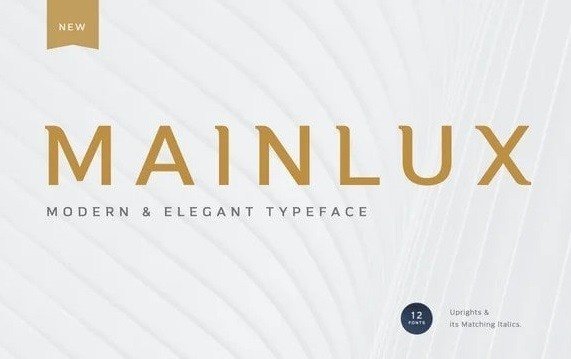
Mainlux Sans Serif Typeface
Mainlux Typeface is a sans-serif geometric typeface inspired by the lettering found on modernist building plans. An elegant small x-height, tall ascenders and wide capital letters make the font look great in titles and short paragraphs.
Very suitable to be used for the manufacture quote text, logotype, header magazine, t-shirt design, and concept handmade designs, etc. This font is free for PERSONAL USE. Link to purchase full version and commercial license: HERE